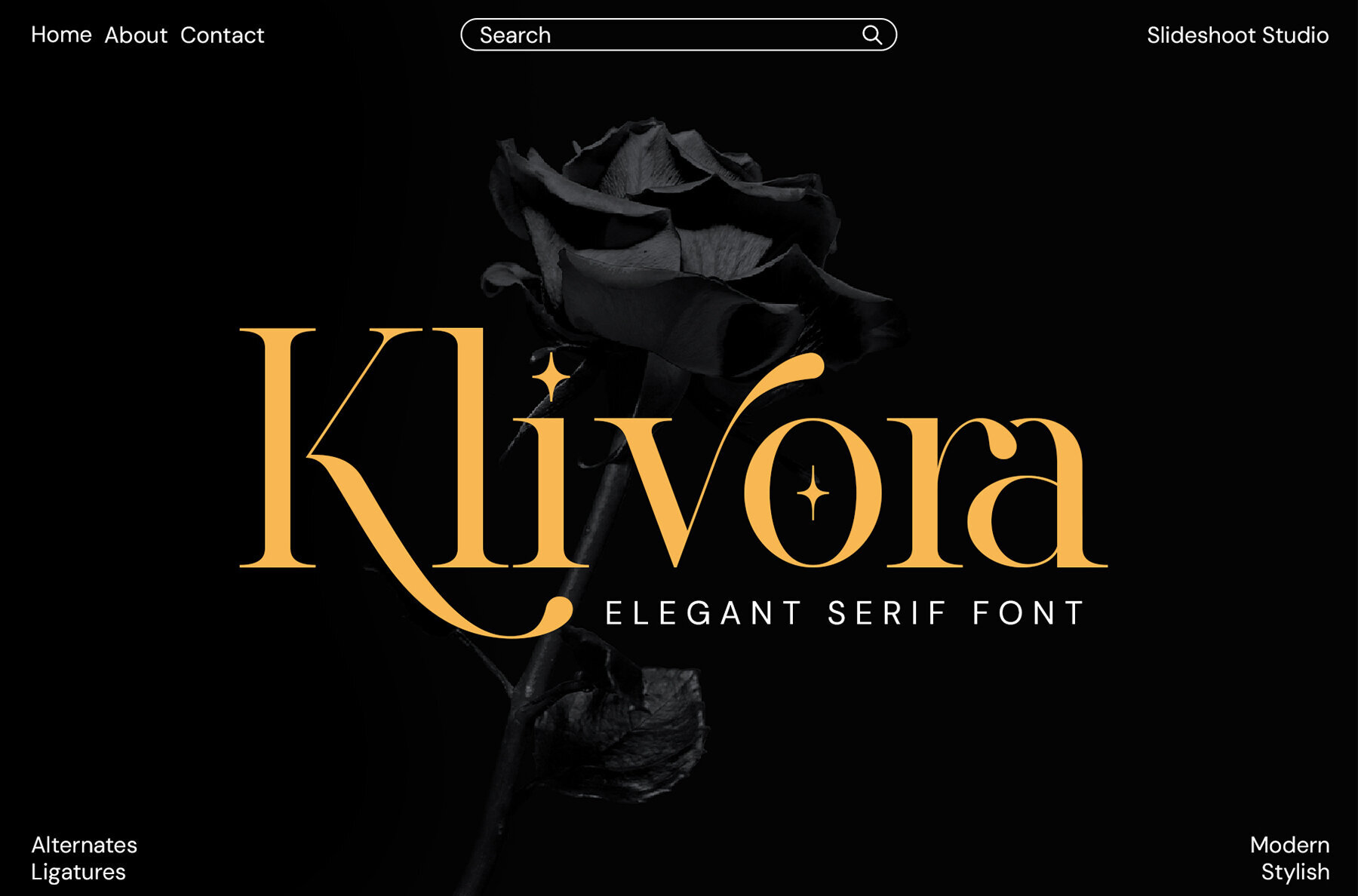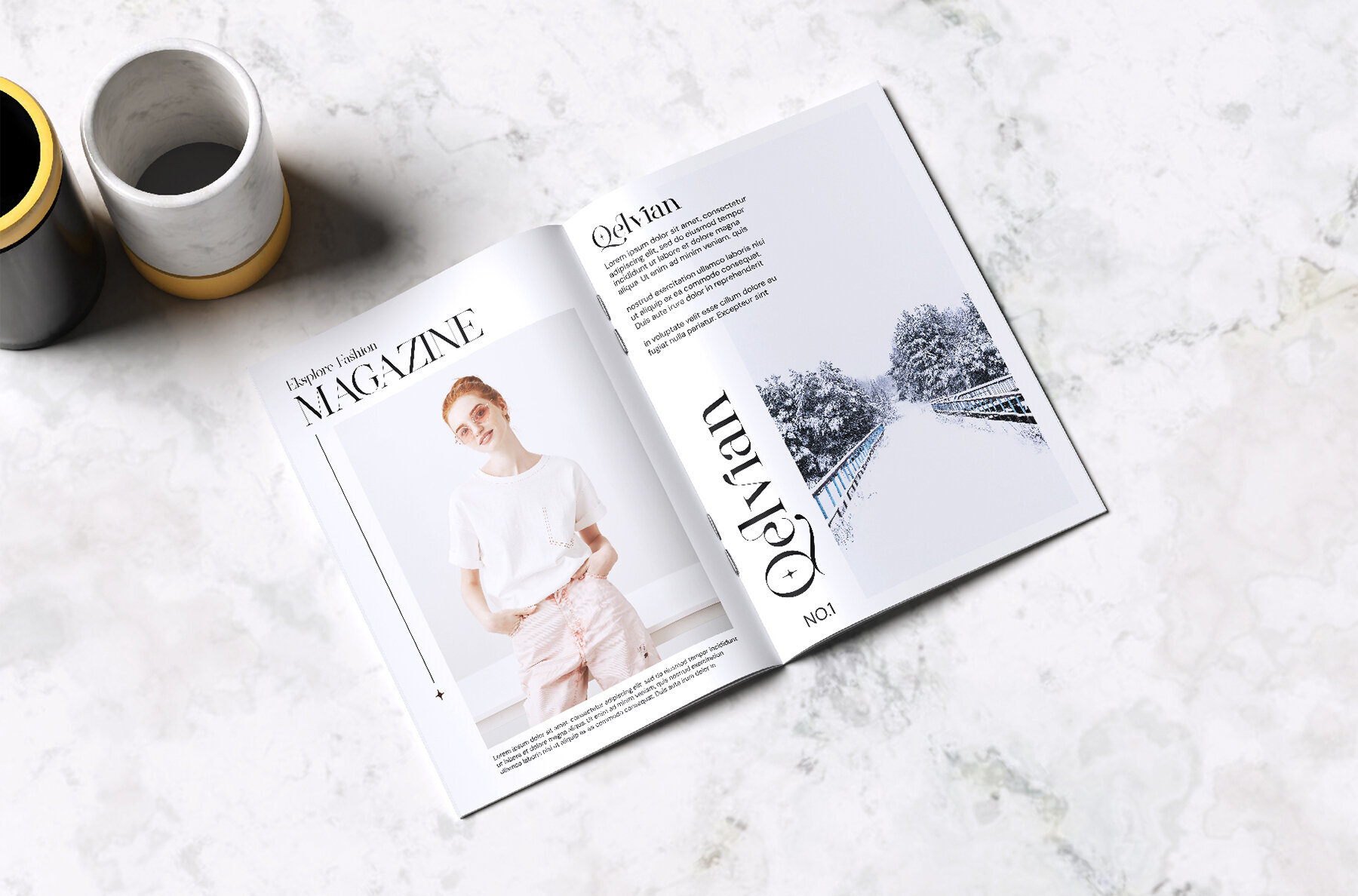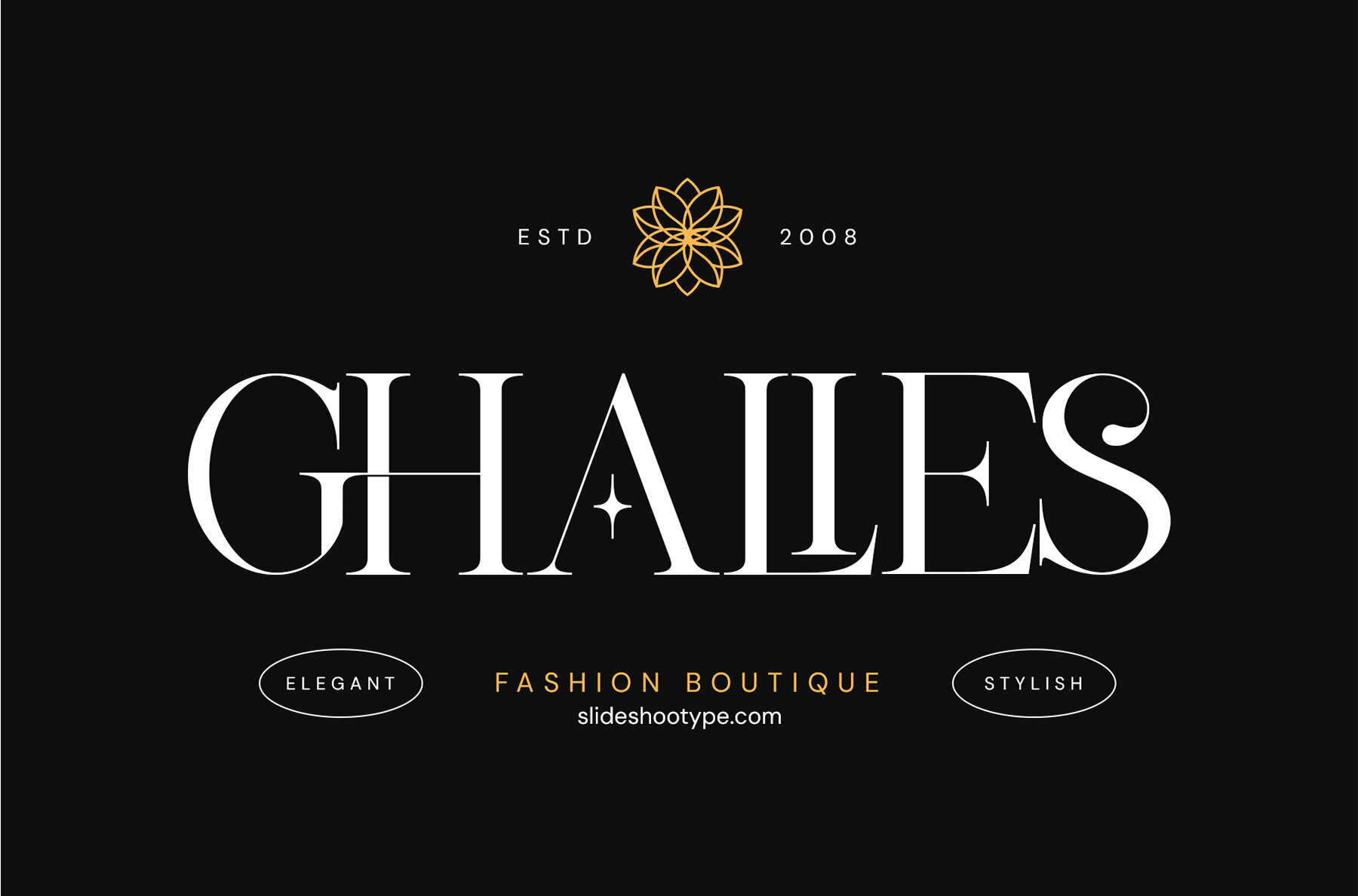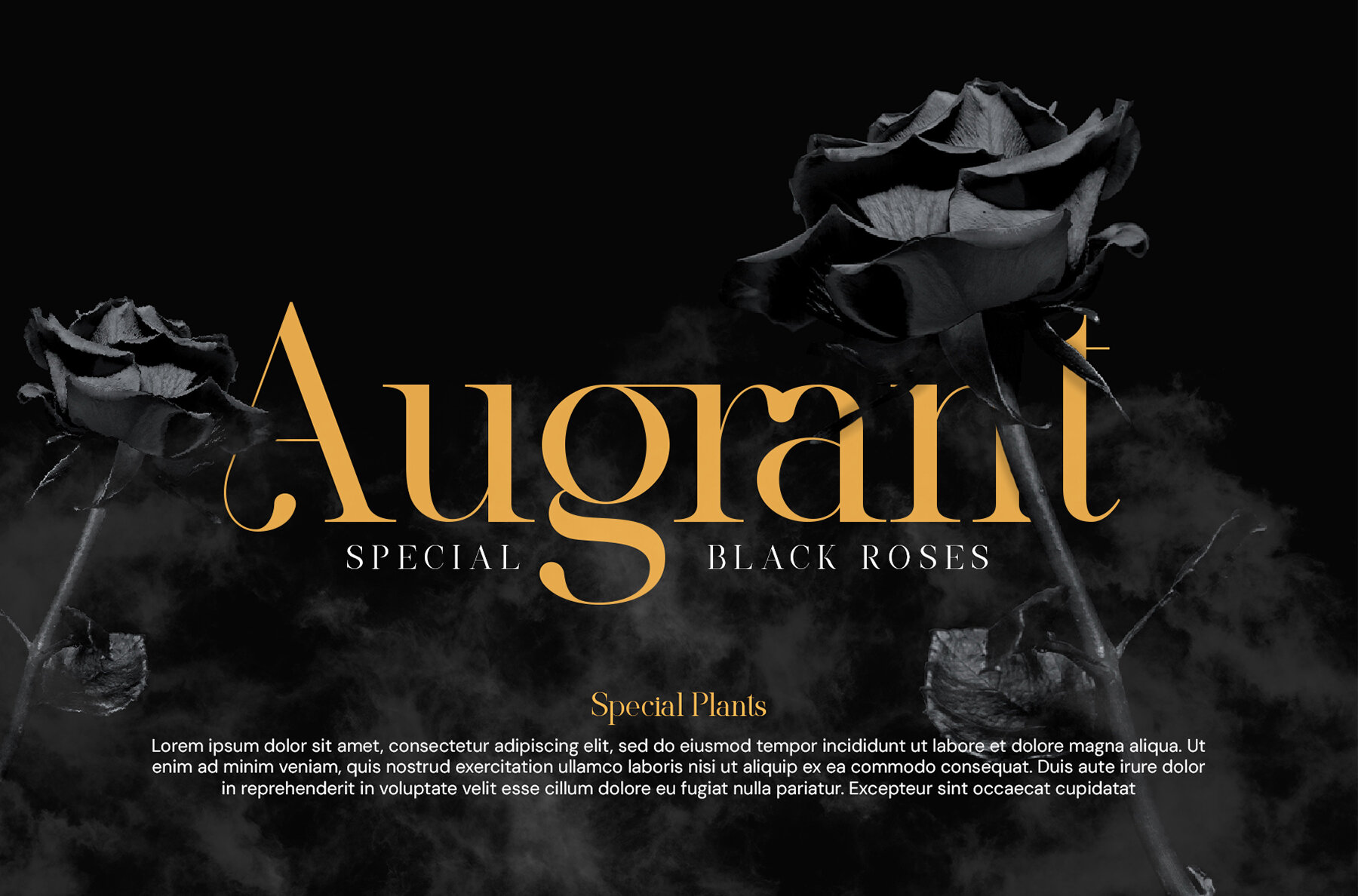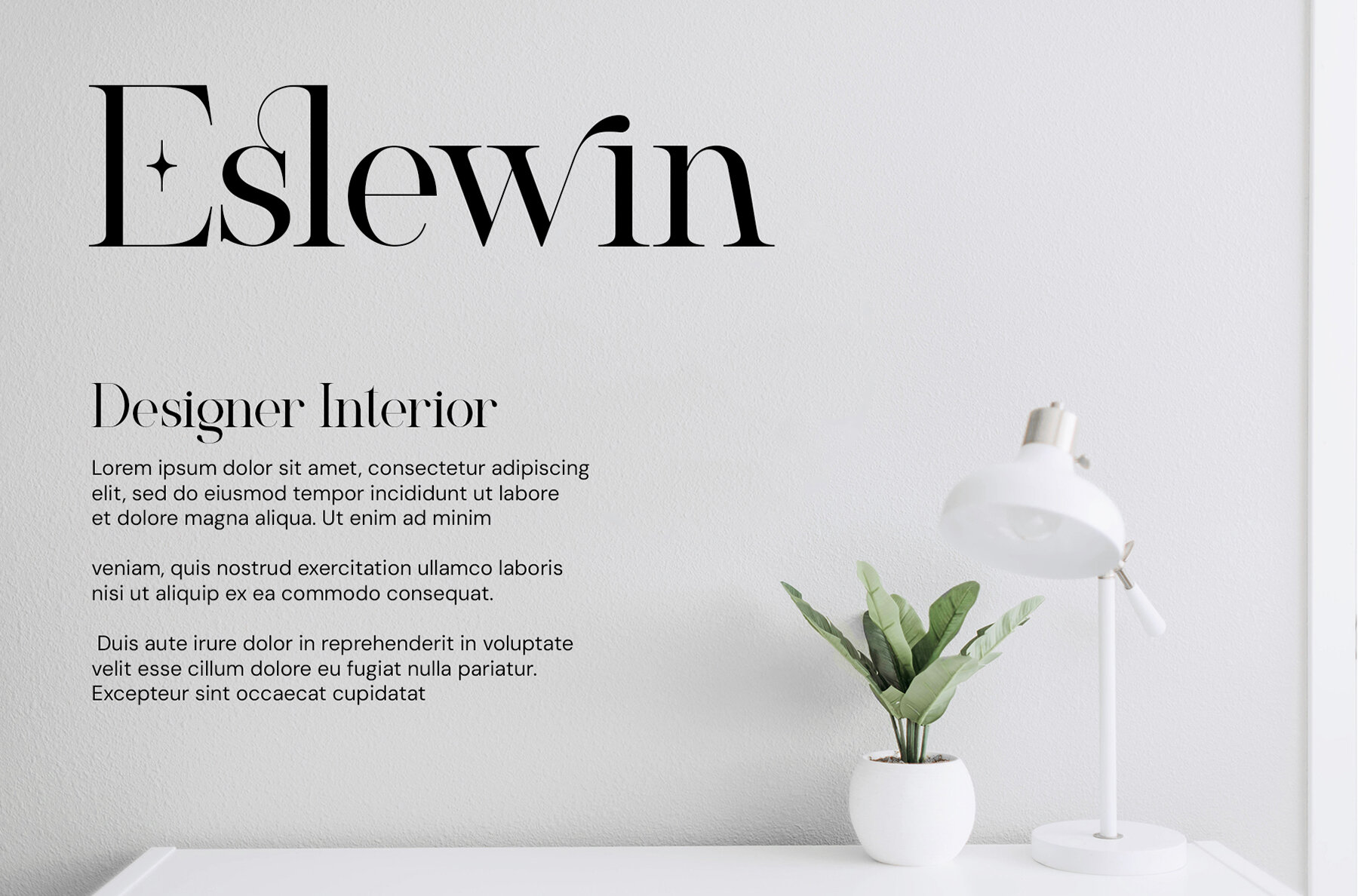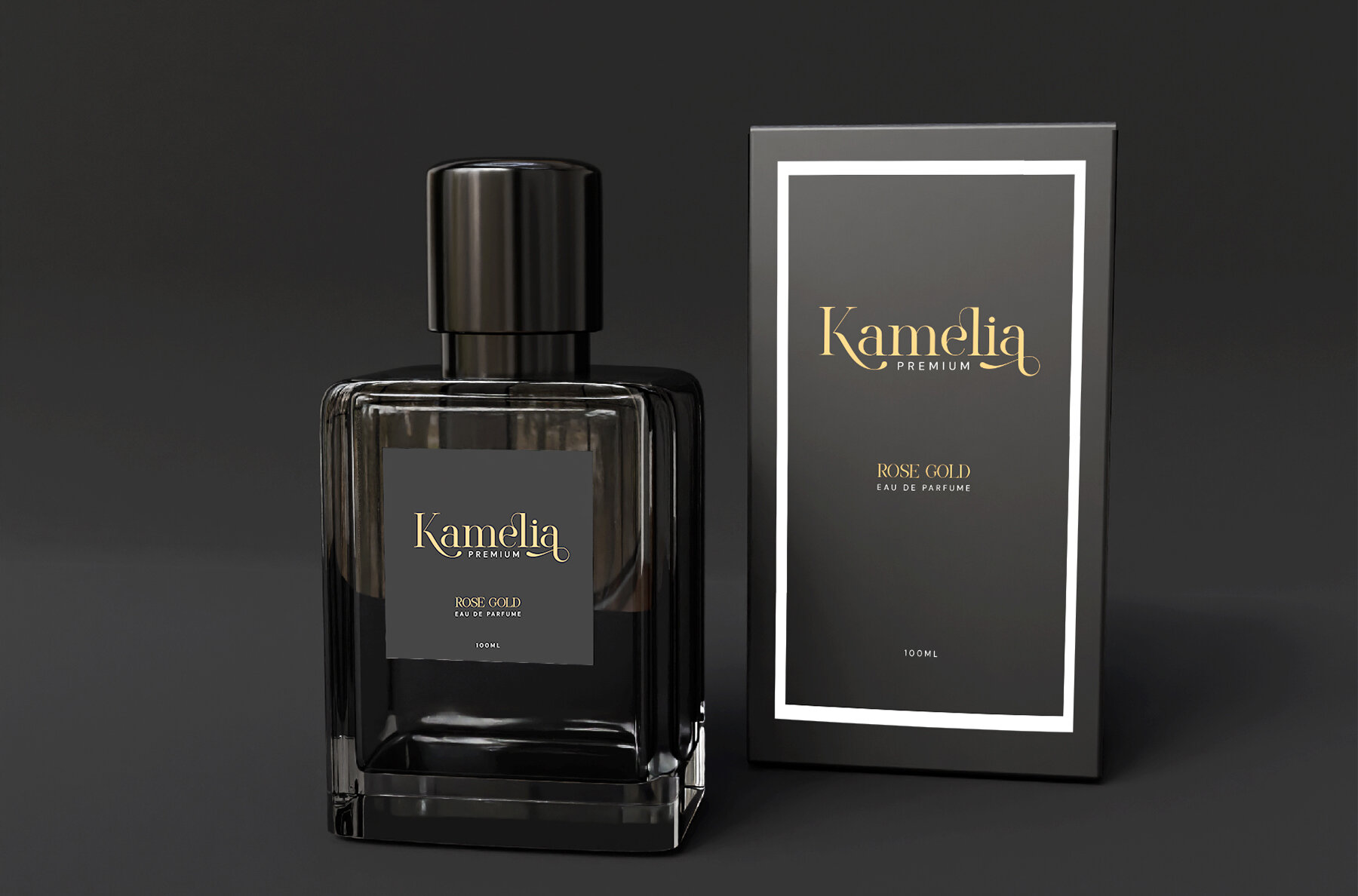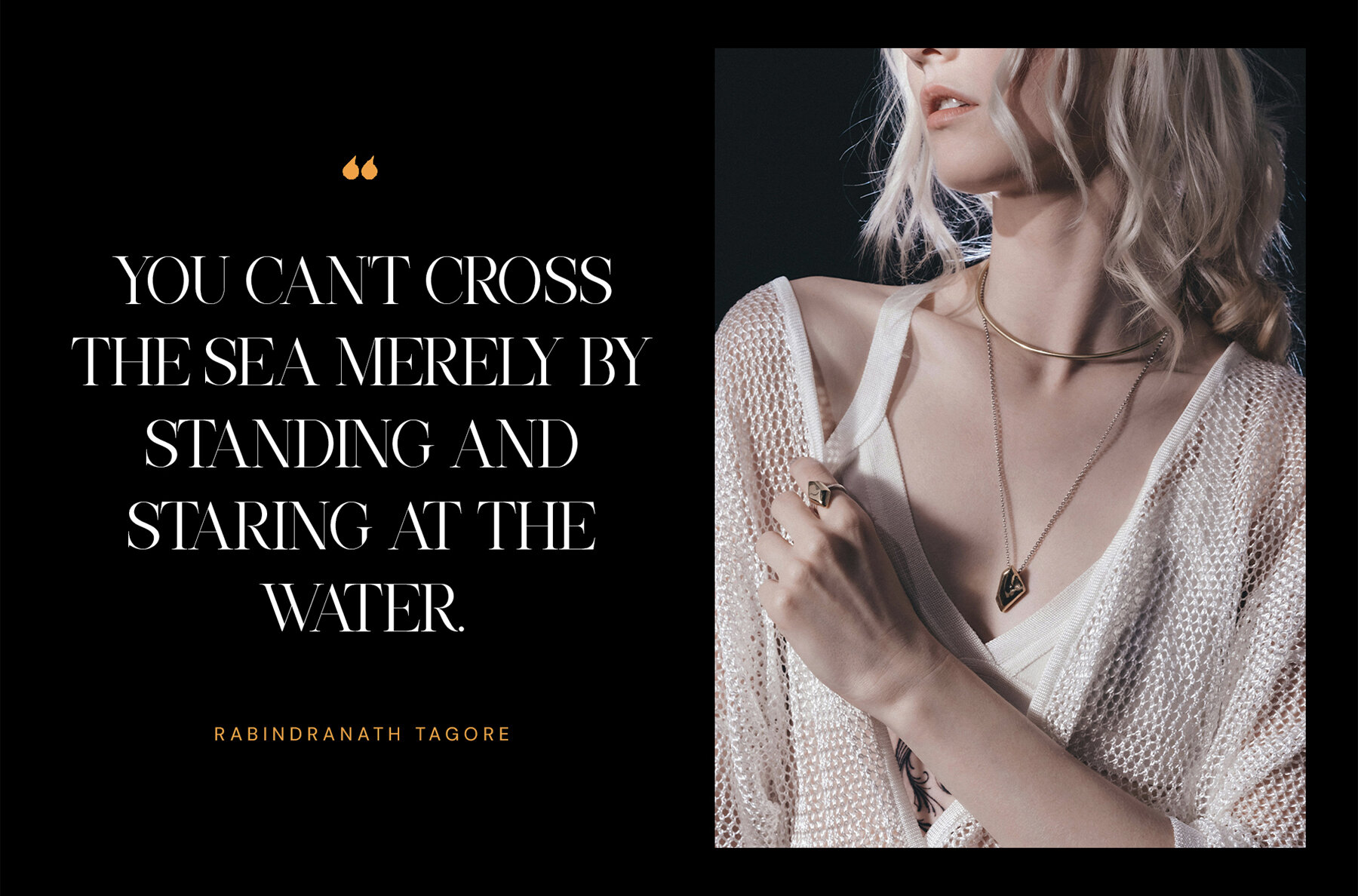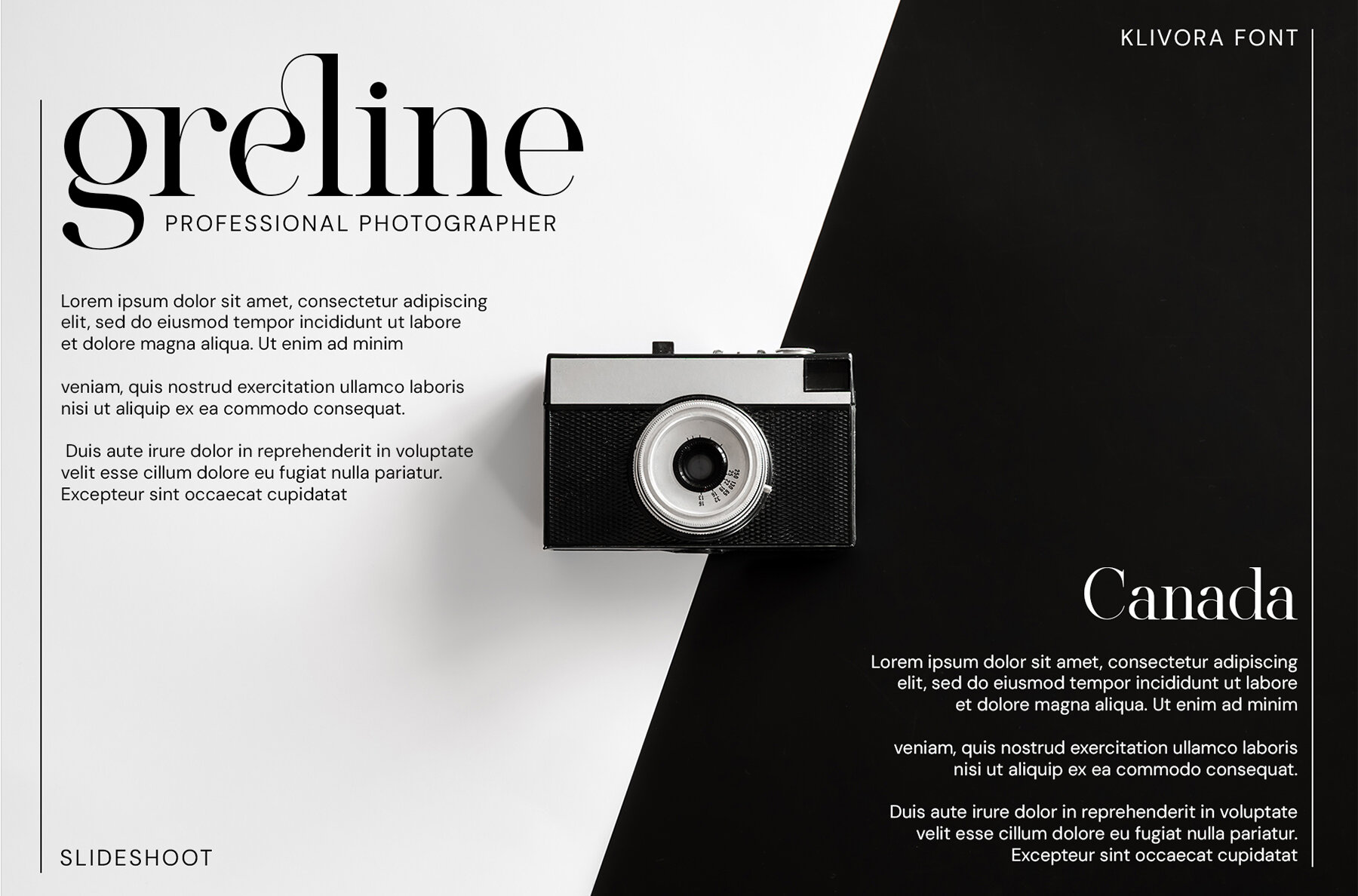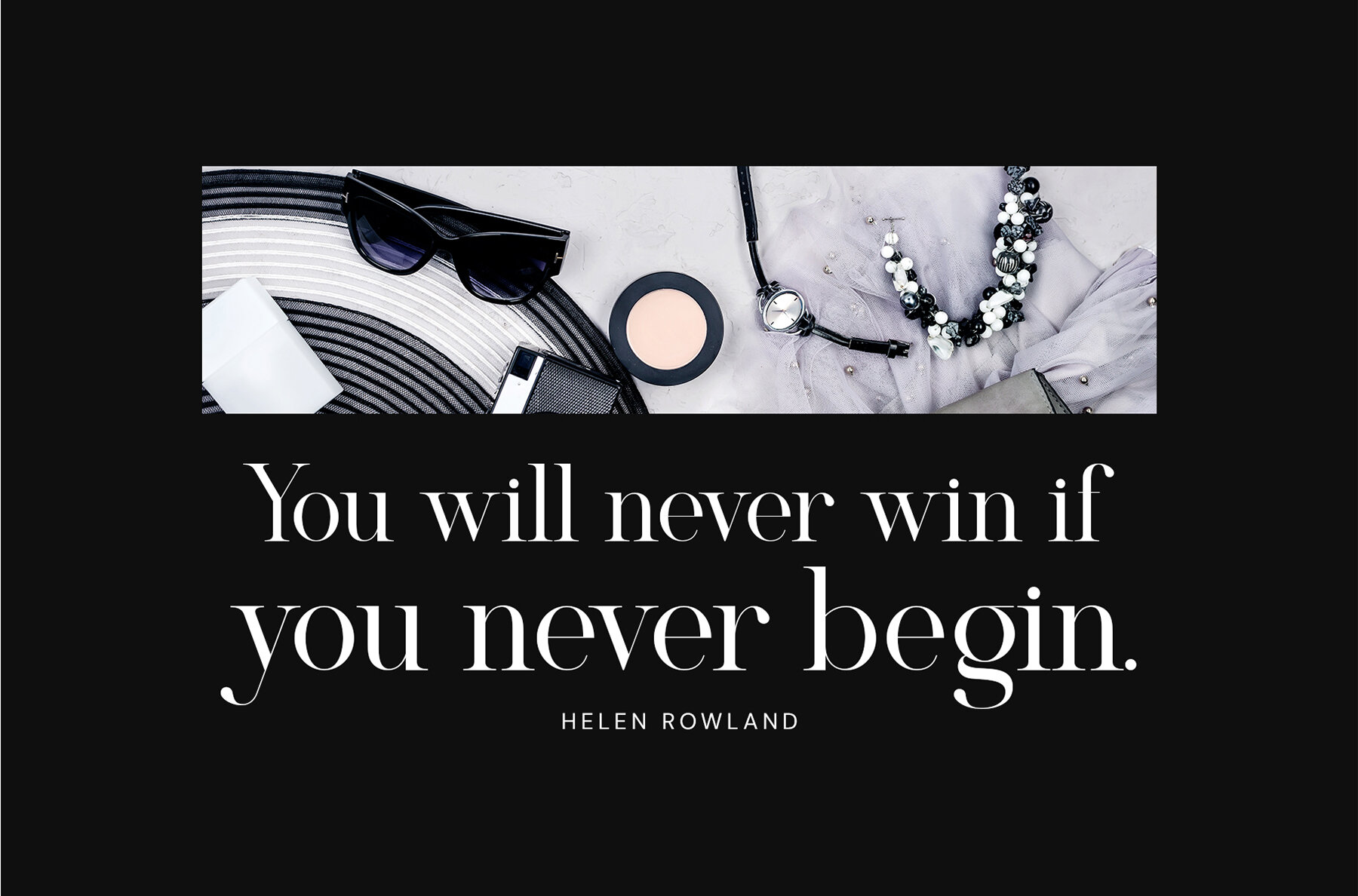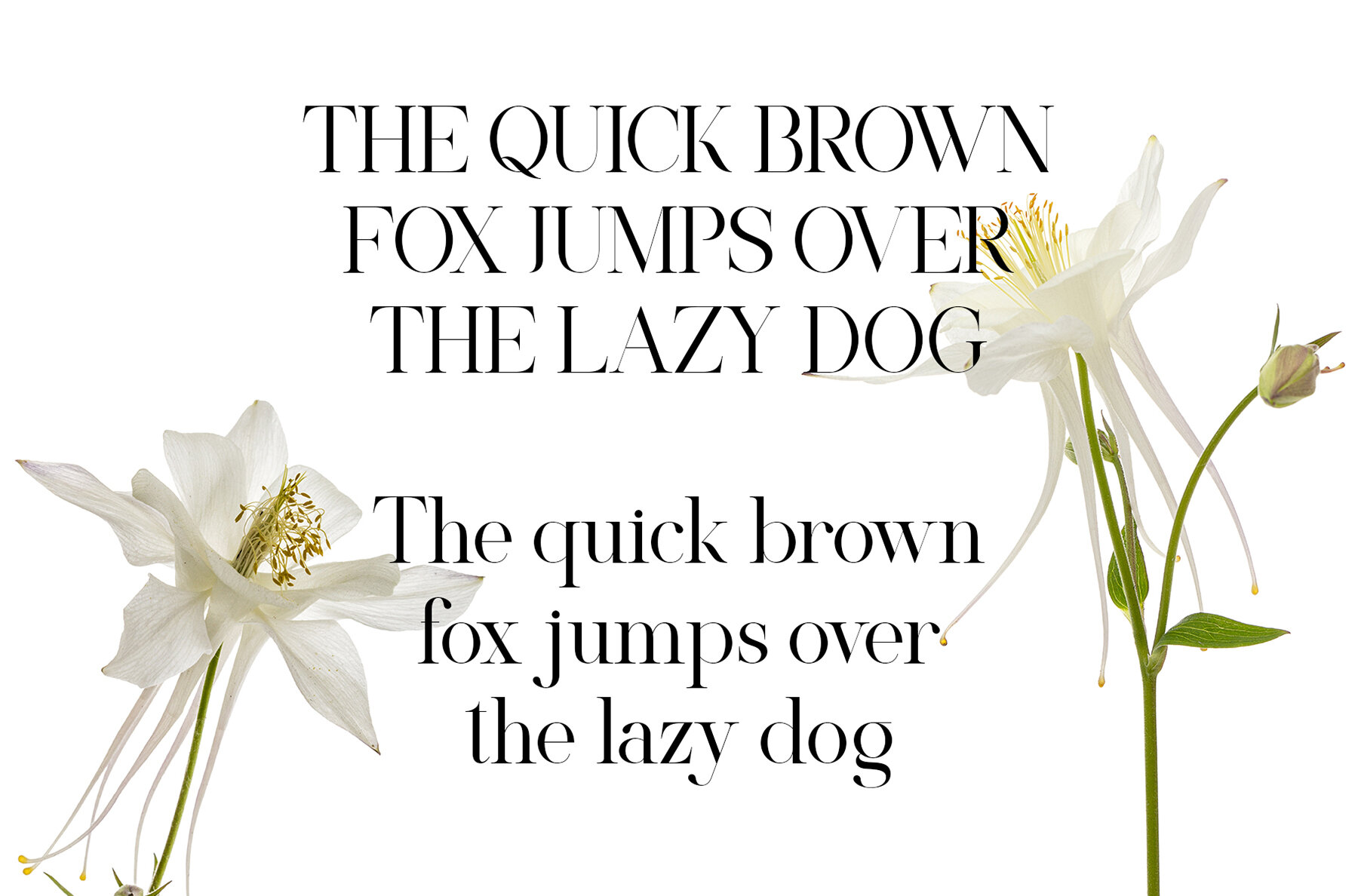
Klivora Font
Klivora Regular
Klivora Serif is a sophisticated and elegant serif font known for its smooth and stylish design. Featuring a beautiful character and refined aesthetics, it is perfectly suited for a variety of design applications, including invitation cards, company logos, film titles, business cards, book covers, and brand names. This versatile font is an excellent choice for designers aiming for a polished and professional look in their projects.
The font includes several features that enhance its usability and appeal. These include ligatures, both uppercase and lowercase letters, and comprehensive support for numbering and punctuation. Klivora Serif can be easily installed on both PC and Mac, ensuring seamless integration with popular design software including Adobe Illustrator, Adobe Photoshop, Adobe InDesign, and even Microsoft Word. Its stylish alternations and binding options make it a reliable partner for any creative project.